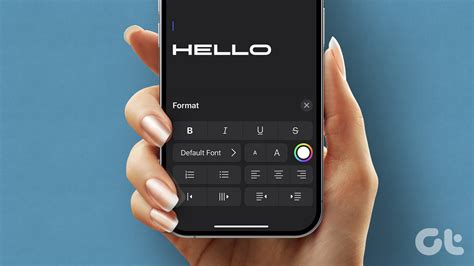
IPhone 7 Plus Font Style Changes
Hey guys! So you’re wondering how to change the font style on your iPhone 7 Plus, right? Well, you’ve come to the right place! It’s actually a bit trickier than you might think, because Apple doesn’t give you a straightforward ‘change font’ button like you might find on a computer. But don’t worry, we’re gonna dive deep into how you can actually customize the look of your text and explore some cool workarounds. So, grab your iPhone 7 Plus, and let’s get this font party started!
Understanding iPhone Font Limitations
First things first, let’s chat about why changing the font style on your iPhone 7 Plus isn’t as simple as picking a new font from a dropdown menu. Apple’s iOS is designed with a certain aesthetic in mind, and that includes a set of default fonts that are used across the system – think Mail, Messages, Safari, and pretty much everywhere else. Unlike Android, which offers more granular control over system-wide fonts, iOS keeps things pretty locked down . This means you won’t find a setting in the main Settings app that lets you swap out the default Helvetica Neue (or San Francisco on later iOS versions, but we’re talking 7 Plus here!) for, say, Arial or Times New Roman. It’s a design choice by Apple to ensure consistency and readability across all their devices. So, if you’re expecting to change the font in your text messages to something super quirky or professional with just a few taps, you’re going to be a little disappointed. However, this doesn’t mean you’re entirely out of luck! We’ll explore the ways you can actually influence the text you see and send. It’s all about understanding the system and knowing where to look for those subtle customization options. While you can’t change the system font easily, you can definitely change the size of the font, which is a pretty big deal for readability. And in certain apps, you might have more freedom than you think. So, even though the direct ‘change font style’ button is missing, there are definitely ways to make your iPhone 7 Plus feel more you .
Adjusting Font Size: The Easiest Change
Alright, so if you can’t change the actual style of the font easily, what can you do? The most straightforward and impactful change you can make is adjusting the font size . This is super important for accessibility and just making your phone more comfortable to use. If you find the text on your iPhone 7 Plus is too small and straining your eyes, or if you prefer a larger, bolder look, here’s how you do it:
1. Head to Settings: Tap on the grey gear icon on your Home screen to open the Settings app.
2. Find Display & Brightness: Scroll down and tap on “Display & Brightness.”
3. Select Text Size: Under the “Brightness” section, you’ll see an option for “Text Size.” Tap on that.
4. Use the Slider: You’ll see a slider with a sample text showing how the size changes. Drag the slider left to make the text smaller or right to make it larger. You can go pretty big here if you need to!
5. Confirm: The change happens instantly, so you can see how it looks in real-time. Just exit the settings once you’re happy.
This change affects most of the text across your iPhone, including apps that support Dynamic Type (which is most of them!). It’s a game-changer for readability, guys. But wait, there’s more! You can also make the text bold .
Making Text Bold for Better Readability
Sometimes, just making the font bigger isn’t enough. For some people, bold text makes it significantly easier to read. Luckily, your iPhone 7 Plus has a built-in option for this too!
1. Go Back to Settings: Open the Settings app again.
2. Navigate to Display & Brightness: Find and tap on “Display & Brightness.”
3. Toggle Bold Text: Under the “Text Size” option, you’ll see a toggle switch for “Bold Text.” Tap it to turn it on.
4. See the Difference: Just like with text size, the change is immediate. Your system text will now appear in a bolder weight, making it stand out more.
Combining a larger font size with bold text can make a massive difference in your iPhone 7 Plus experience, especially if you struggle with small print. It’s a simple tweak that has a huge impact on usability. So, while we haven’t changed the font style per se, we’ve definitely optimized the look and feel of the text to be more comfortable for you. Pretty neat, huh?
Exploring App-Specific Font Options
Now, while you can’t change the system-wide font style on your iPhone 7 Plus, many apps offer their own built-in font customization. This is where you can get a little more creative with how your text looks! Think about apps you use daily for reading or writing. News apps, e-readers, note-taking apps, and even some social media apps often let you choose from a selection of fonts. Let’s take a popular example: Apple Books.
When you’re reading a book in the Books app:
1. Tap the Screen: While reading, tap in the center of the screen to bring up the reading controls.
2. Tap the ‘Aa’ Icon: Look for the “Aa” icon (usually at the top or bottom of the screen). Tap it.
3. Choose Your Font: You’ll see a menu with various options, including “Font.” Here, you can often select from several different typefaces. You might find options like Times New Roman, Georgia, or even more stylized fonts depending on the app’s offerings. You can also adjust line spacing, margins, and background color here too!
This is fantastic for making your reading experience more enjoyable. If you prefer a serif font for novels or a clean sans-serif for articles, you can usually find it within the app’s settings. Other apps that commonly offer this feature include:
• Kindle App: Similar to Apple Books, you can customize fonts, sizes, and spacing.
• Evernote/OneNote: For your notes, you can often set a default font for new notes.
• News Apps (e.g., Apple News): Many news aggregators allow you to pick a preferred reading font.
And for the adventurers out there, third-party keyboard apps and the Shortcuts app offer more creative, albeit sometimes quirky, solutions. Custom keyboards can let you type in fancy fonts, but be mindful of compatibility and privacy. Shortcuts allow you to craft and copy specific styled text snippets.
Ultimately, while you can’t repaint your entire house with custom wallpaper easily, you can choose different curtains and decor for each room! So, go ahead, experiment with these methods, and make your iPhone 7 Plus feel uniquely yours. Happy customizing, guys!